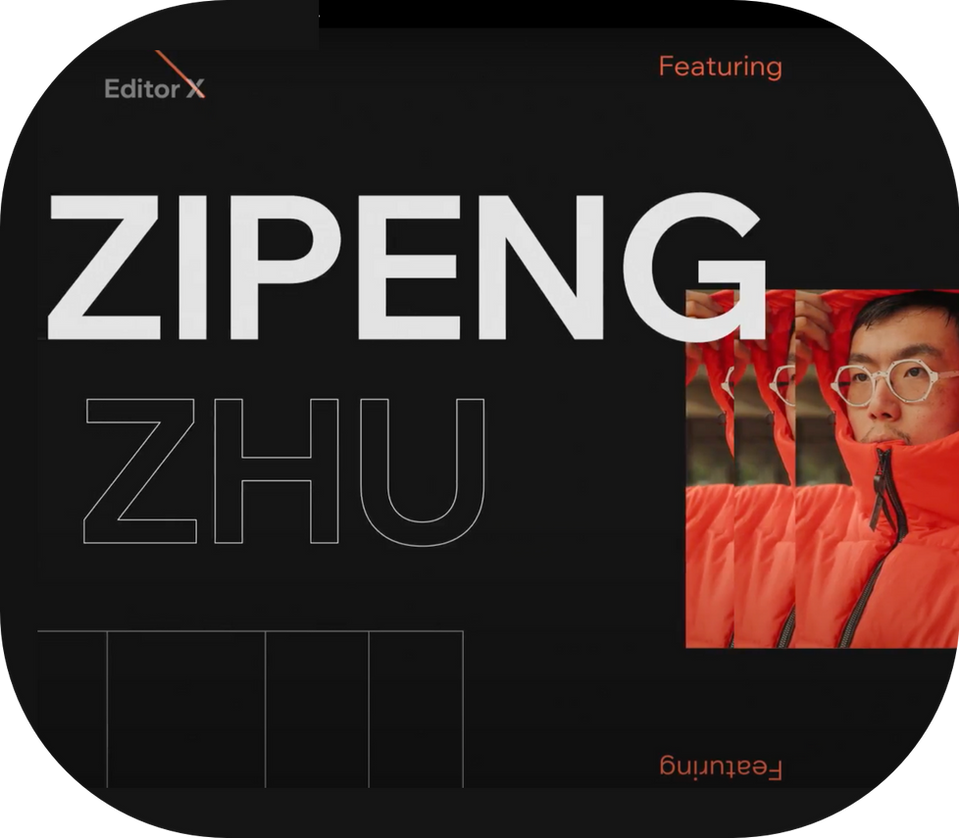
Madefor
A versatile typographic toolkit with a distinct personality, Madefor strikes a balance between freedom and structure. Designed for your vision — made for you.
Madefor combines wide geometric proportions, clean curves, and flaring grotesk terminals as best seen in the flagship Display cut. The curvy, playful ‘s’ particularly shows off those features, while the pipe-bend short terminals of ‘f’, ‘j’, ‘t’ and ‘y,’ and the subtle asymmetry in the bowls of ‘b’, ‘d’, ‘g’, ‘p’, and ‘q’ showcase Madefor’s fresh and distinct appearance.
The typeface stands out throughout its range of weights and styles. Asymmetrical counters and flowing, continuous curves shine at large sizes, while narrow and loose text styles allow Madefor to work efficiently at small sizes both within paragraph text and across Wix’s UI. Italic styles break away from the uprights with their dynamic and cursive skeleton, providing a perfect platform for content that needs emphasis or simply wants to feel more playful or personal.
Madefor represents ournatural passion to create products that enable millions to pursue their dreams.
A typeface is the visual personification of your voice, and Madefor allows you to make it your own. Find yourself within Madefor’s weights and styles, designed for modularity. Use it to stand out and speak up — it was made for you.